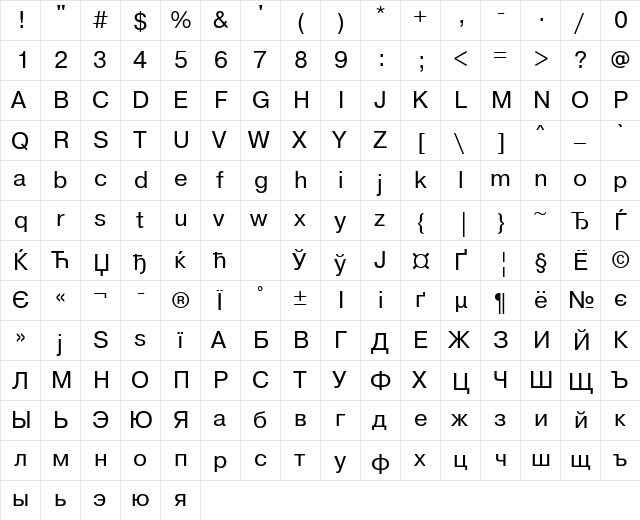
PragmaticaCTT Regular
Design Context for PragmaticaCTT Typeface
PragmaticaCTT offers clean, dependable letterforms without strong stylistic allegiance, making it a practical choice for designers who need flexibility.